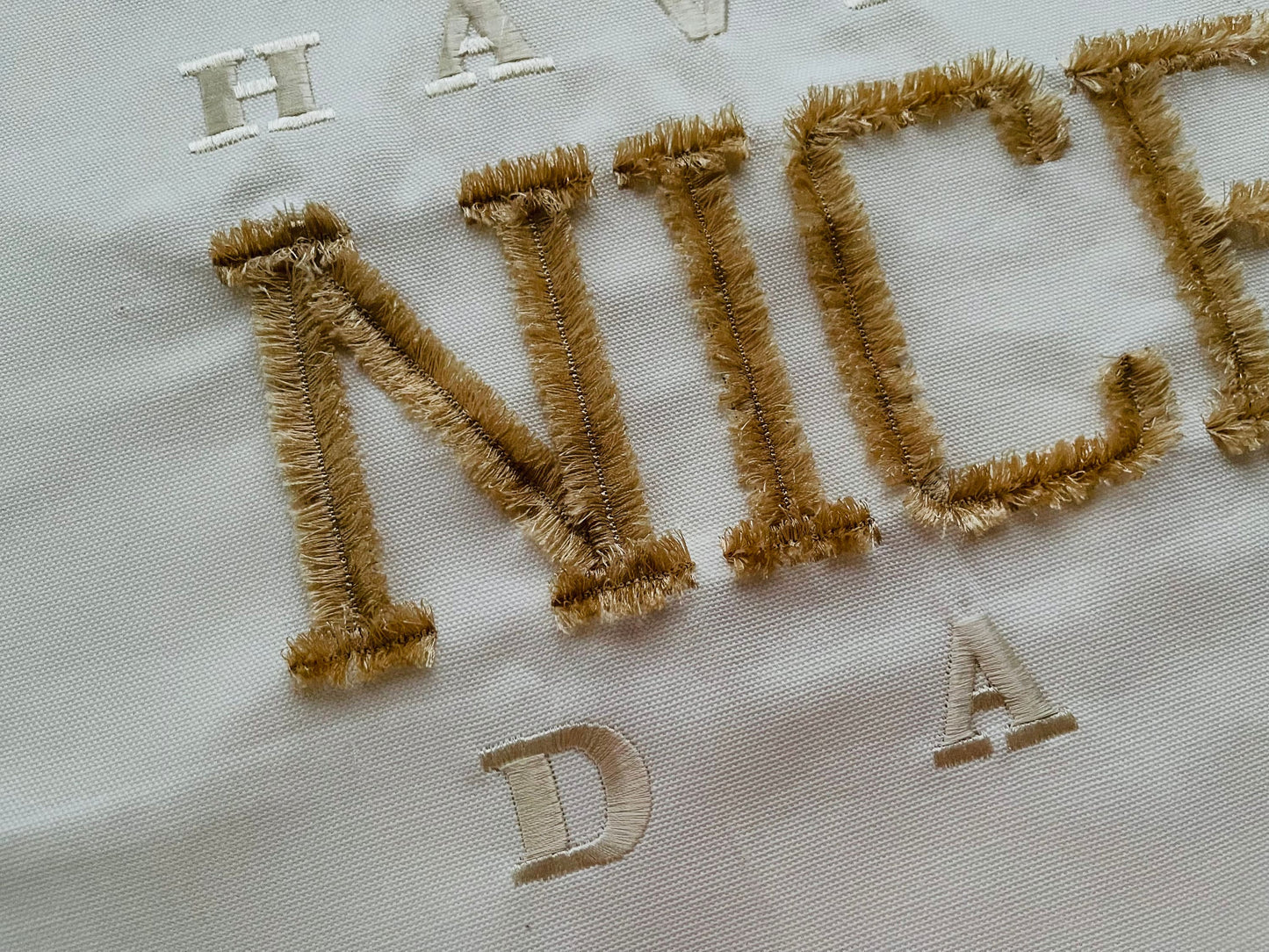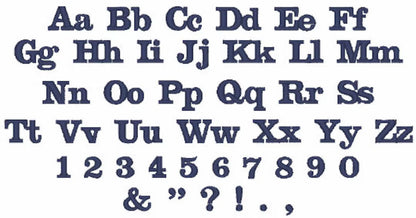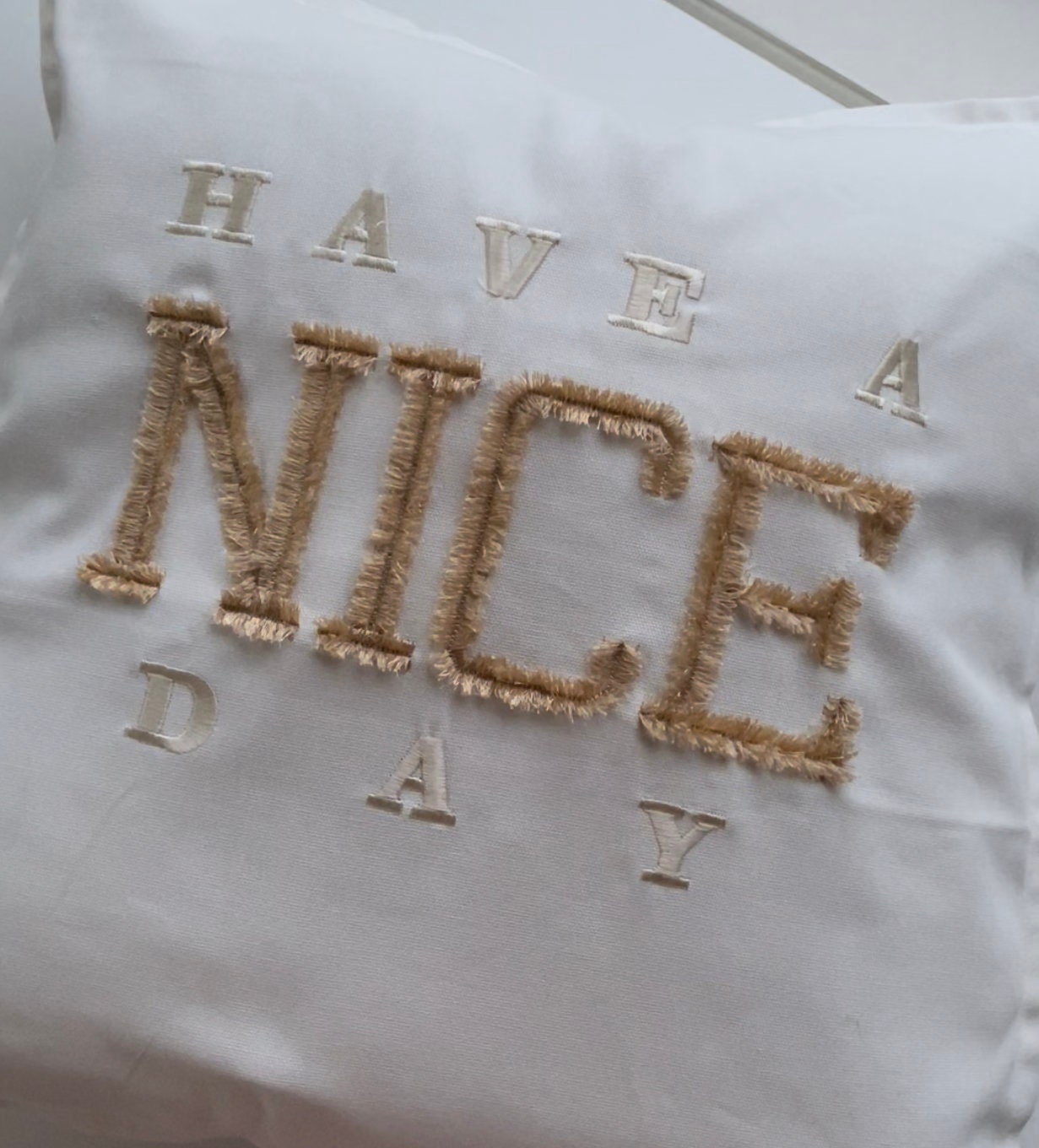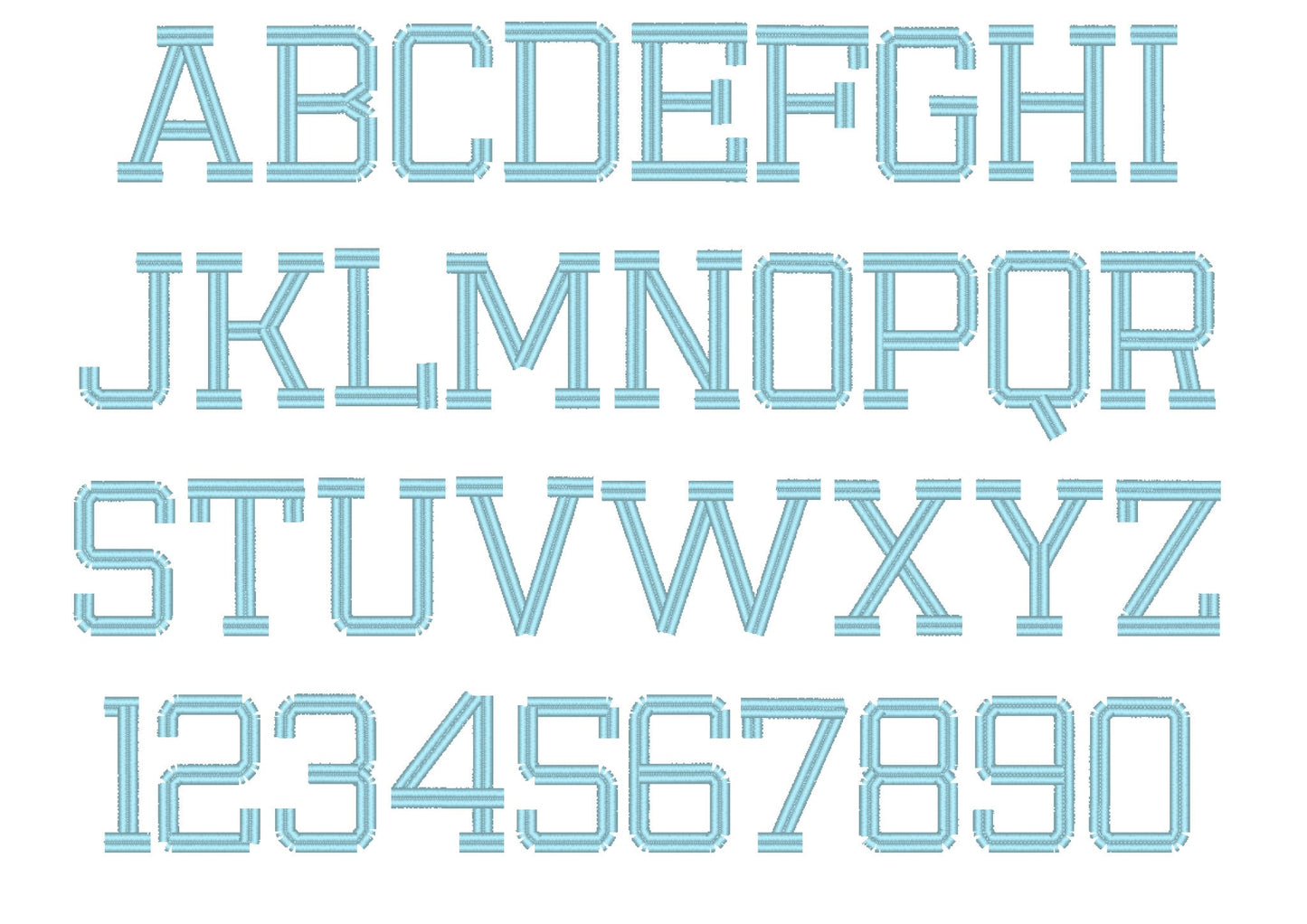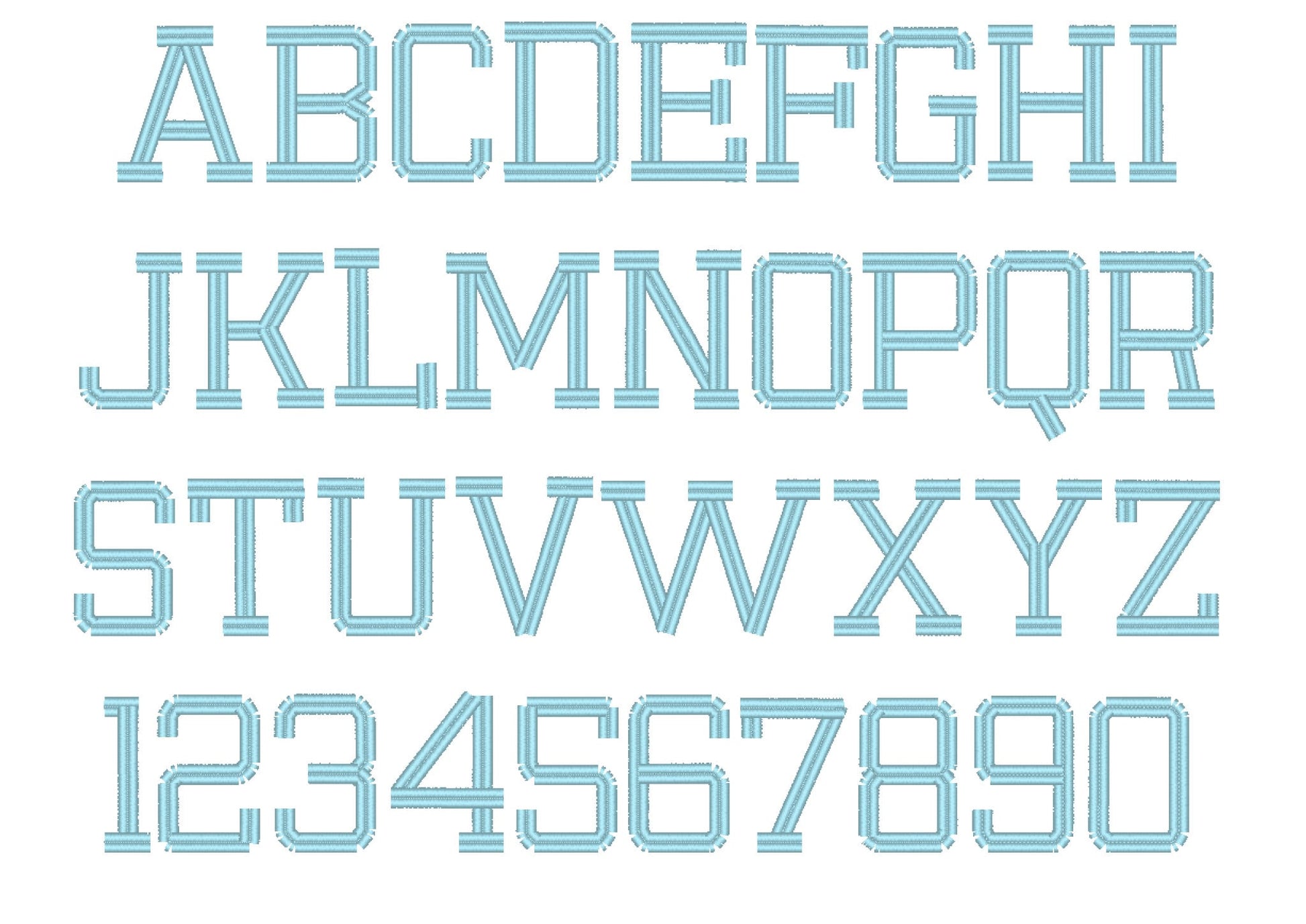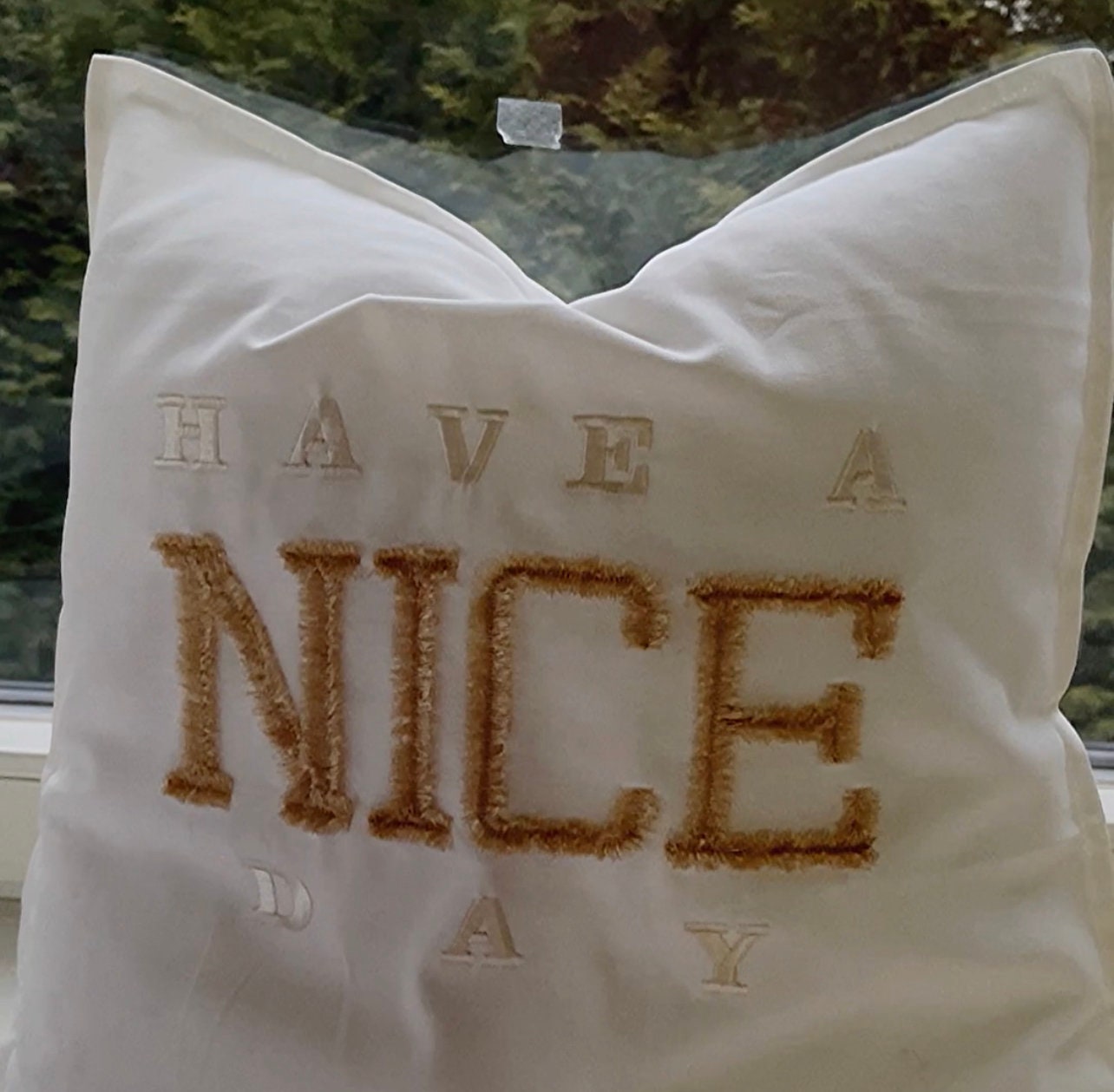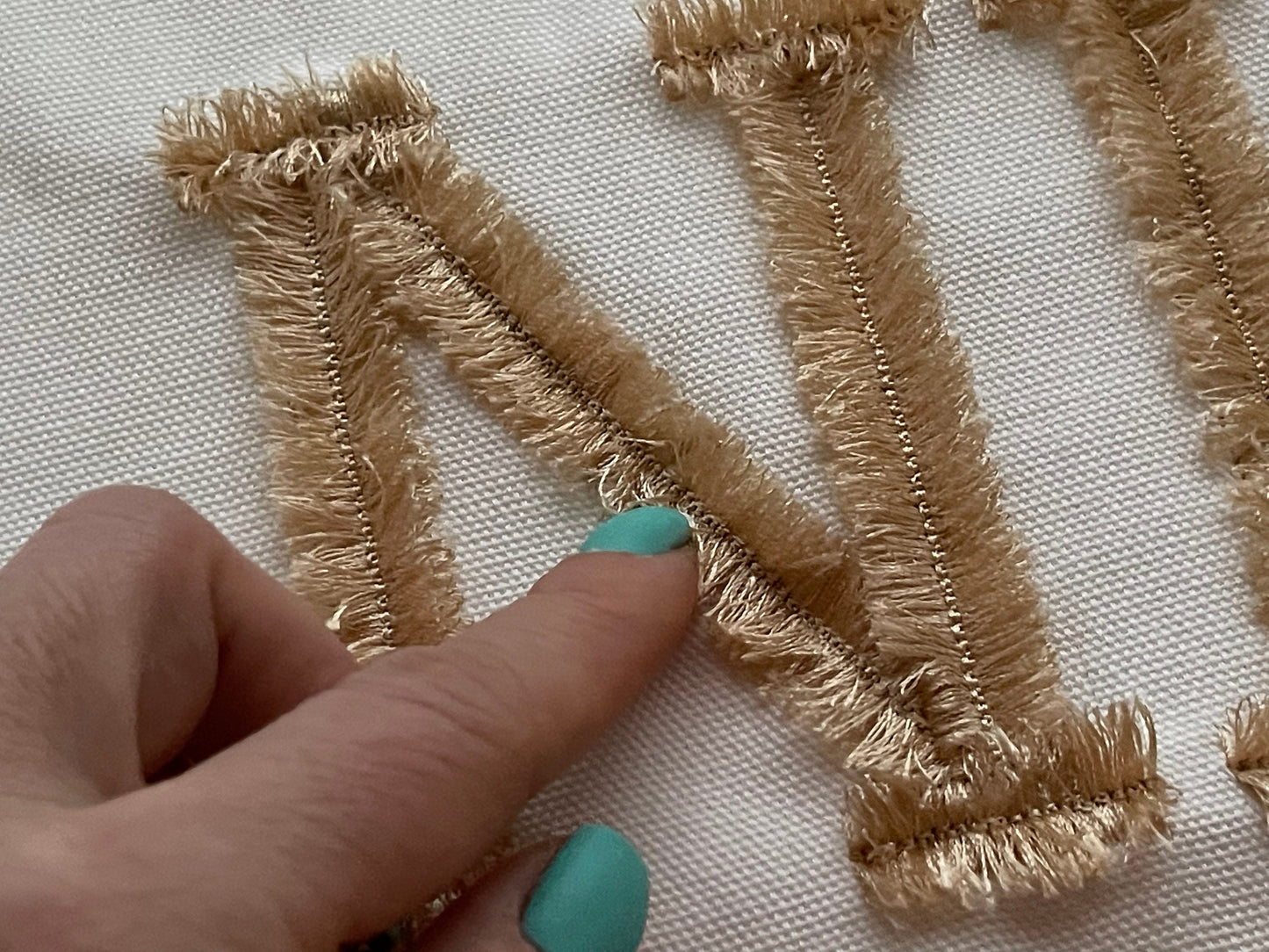
Letters: Sizes (inches): 2.2", 2.7", 3.1", 3.4", 4", 4.4"
Mini Font: Sizes (inches): 0.5", 0.7", 0.8", 1", 1.4"
Or click to open the linkA fringed faux chenille varsity font with a matching mini font. Fluffy and sporty for letterman jackets, team shirts and sweatshirts.
The fringed font has uppercase letters A to Z and numbers 0 to 9 in 2.2, 2.7, 3.1, 3.4, 4 and 4.4 inches. The mini font has uppercase and lowercase letters, numbers 0 to 9, umlauts and punctuation in five small sizes from 0.5 to 1.4 inches.